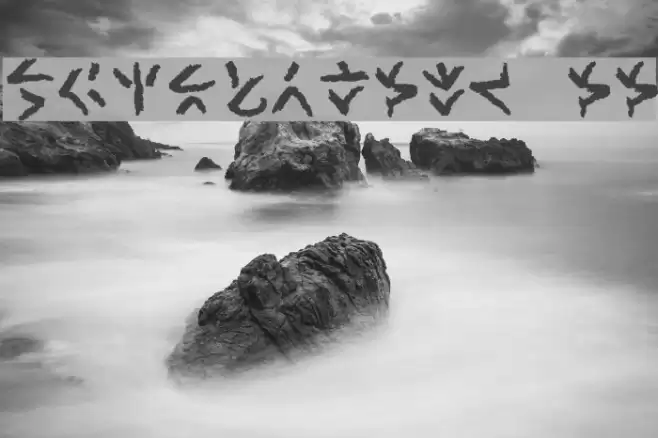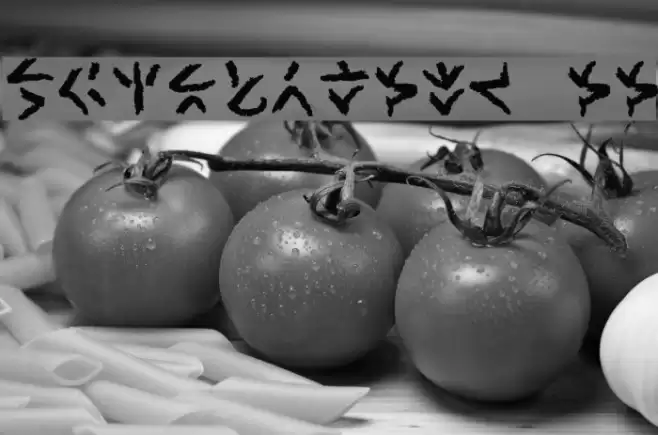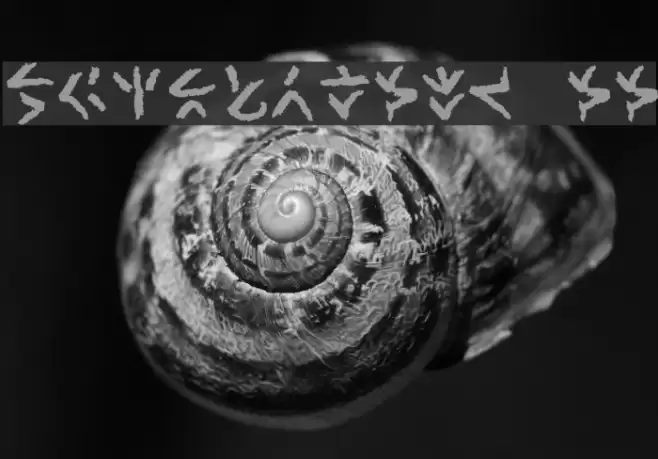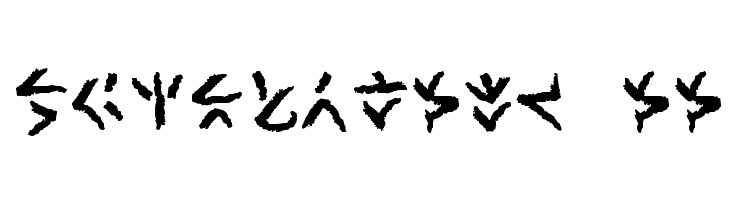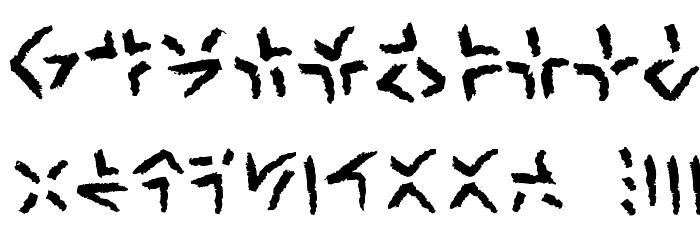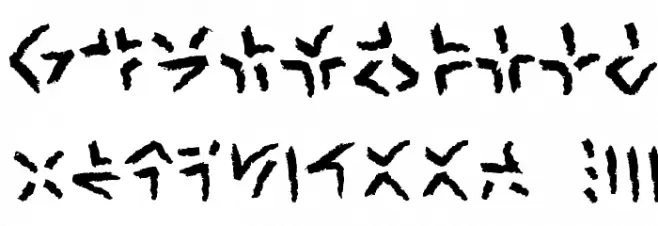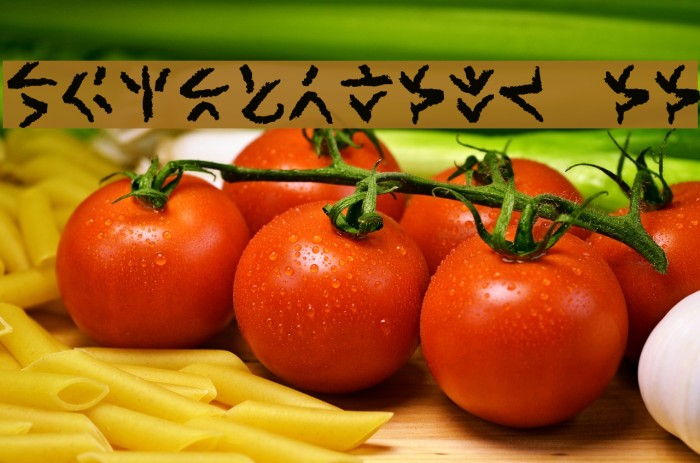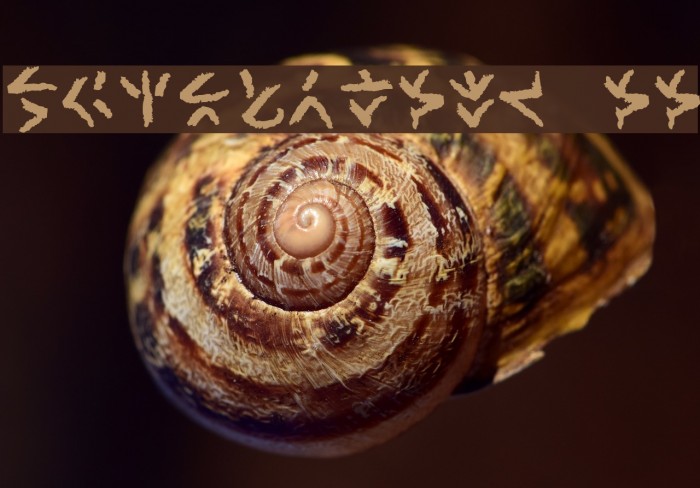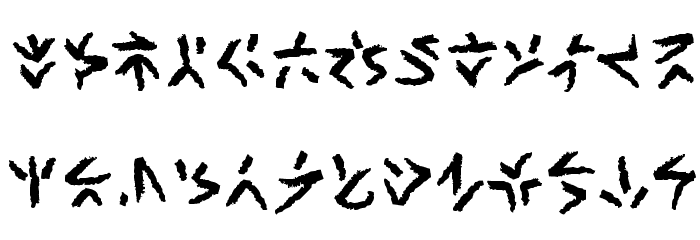
XenoTribal BB Font
XenoTribal BB Description
This font features a highly stylized, tribal-inspired design with bold, angular strokes that give it a rugged and primitive appearance. The characters are crafted with a rough, hand-drawn quality, evoking a sense of ancient scripts or symbols. Each letter is unique, with varying line thicknesses and sharp edges that create a dynamic and energetic look. The overall aesthetic is both mysterious and bold, making it suitable for projects that require a distinctive and unconventional typeface. The font's design is reminiscent of ancient carvings or markings, providing a sense of history and depth.
A bold, tribal-inspired font with rugged, angular strokes and a hand-drawn aesthetic from Uncategorized fonts.
- Proposed Projects: Ideal for use in themed event posters, video game graphics, album covers, or any project requiring a bold, tribal aesthetic.
- Use Case: Logos, Posters, Themed Events